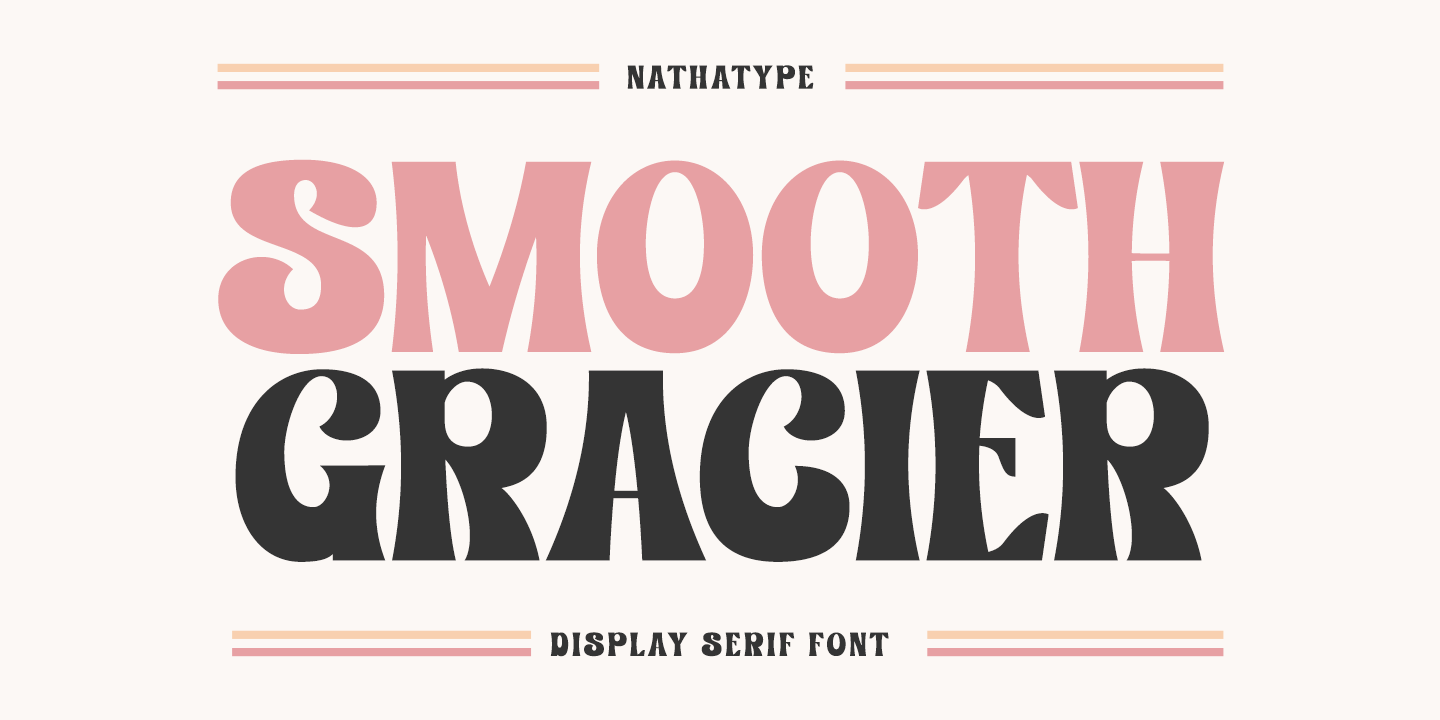
Smooth Gracier Font is ideal for elegant beauty branding, refined wellness campaigns, graceful spa communications, sophisticated cosmetic packaging, serene meditation centers, flowing yoga studios, gentle skincare products, peaceful lifestyle marketing, graceful dance performances, and tranquil luxury hospitality.
What makes Smooth Gracier Font exciting is its flowing elegance that perfectly captures the seamless grace and gentle sophistication found in refined beauty treatments and peaceful wellness experiences. This typeface features smooth letterforms with graceful proportions and flowing details that evoke the gentle tranquility and effortless elegance of premium beauty and wellness environments. The font's serene personality and graceful authenticity make it ideal for wellness brands seeking to convey tranquility, elegance, and the smooth refinement that comes from gentle beauty treatments and peaceful wellness experiences.
Smooth Gracier Font family includes flowing weight variations and graceful alternatives that enhance its elegant appeal while providing design flexibility for beauty and wellness applications. The font features smooth ligatures, grace-themed ornaments, and flowing character variations that create authentic tranquil atmosphere for beauty and wellness branding.
Beauty companies and wellness centers consistently choose Smooth Gracier Font Free Download for projects requiring authentic graceful appeal and wellness credibility. The font's serene character excels in applications targeting wellness seekers, beauty enthusiasts, and tranquility appreciators who value genuine peace and graceful elegance. Whether you're designing for beauty salons, wellness retreats, or peaceful lifestyle brands, this flowing typeface delivers the graceful authenticity and smooth elegance that resonates with audiences seeking genuine tranquility and the effortless beauty that defines peaceful wellness and graceful beauty excellence.